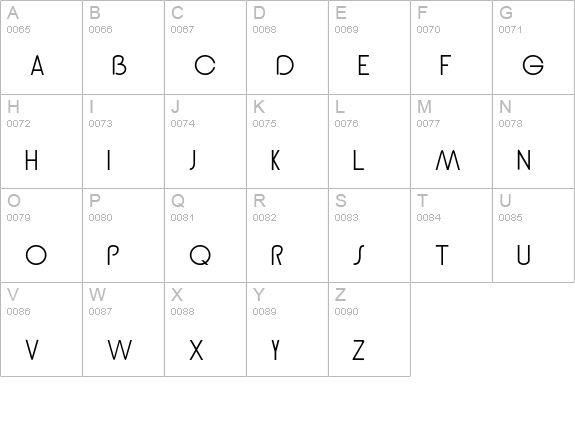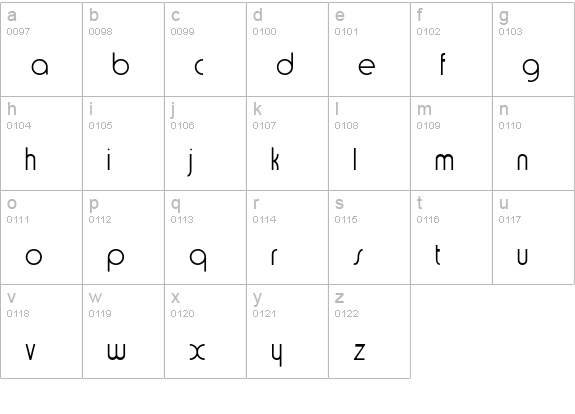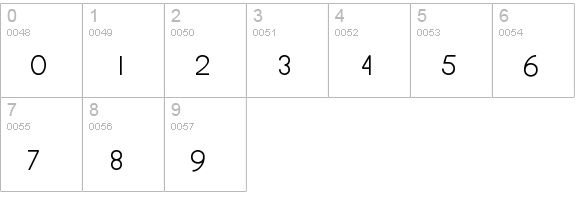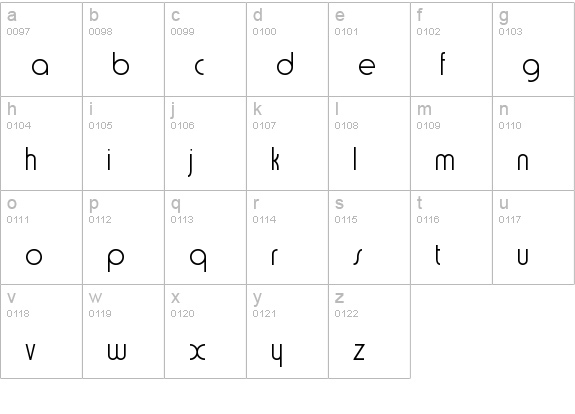
Bethel Font Details
Bethel font is a modern and stylish typeface that exudes elegance and sophistication. Its clean lines and sleek curves make it perfect for a wide range of design projects, from branding to editorial design. The versatility of Bethel font allows it to be used in both print and digital media, making it a must-have for any designer looking to elevate their work. What sets Bethel font apart is not only its timeless design, but also the fact that it is available for free. That's right – you can download Bethel font for free at FontsMarket.com and start using it in your projects right away. Whether you're working on a logo, website, or marketing materials, Bethel font is sure to make a statement and leave a lasting impression on your audience. Don't miss out on this opportunity to add Bethel font to your font library for free. Download it today from FontsMarket.com and take your design projects to the next level with this exquisite typeface.